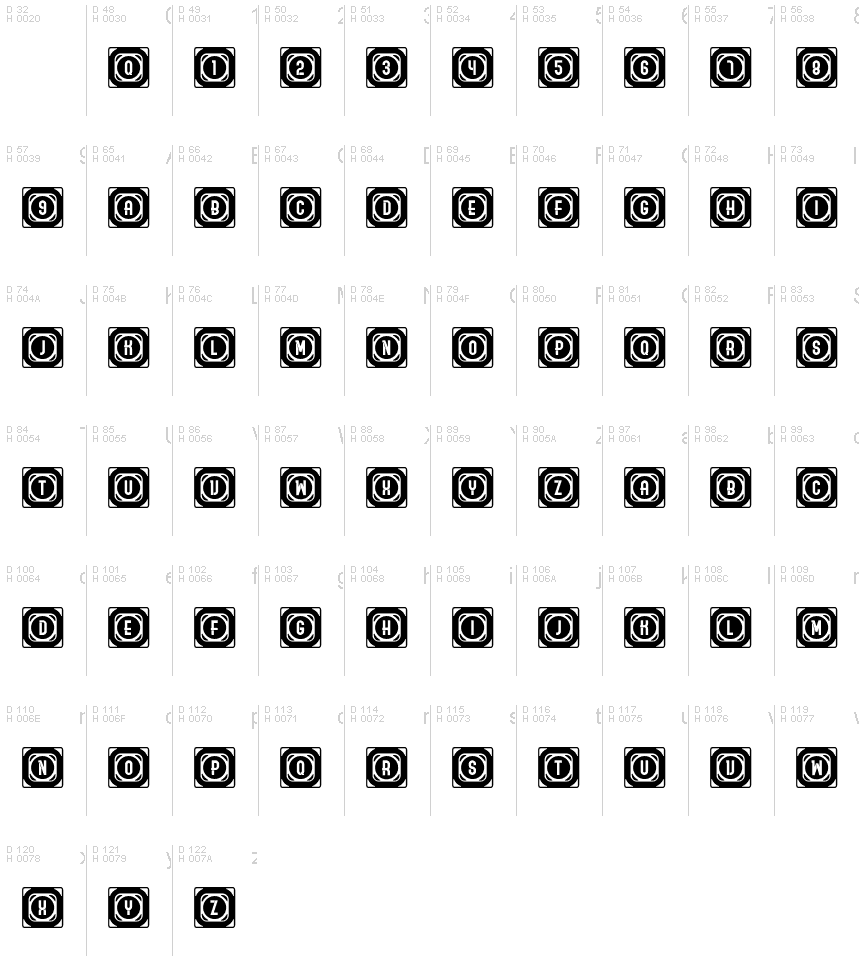
Ordinary Capitals Regular
Ordinary Capitals is a striking display font designed by Vladimir Nikolic. Its decorative style and condensed width make it perfect for eye-catching headlines, logos, and branding work that demands a touch of uniqueness. The negative space between the letters adds an extra layer of intrigue to any design it's used in. Use Ordinary Capitals to take your projects from ordinary to extraordinary - whether it's a bold marketing campaign or a sophisticated wedding invitation suite. With its versatility and standout style, this semi-bold typeface is sure to make an impact wherever it's seen.